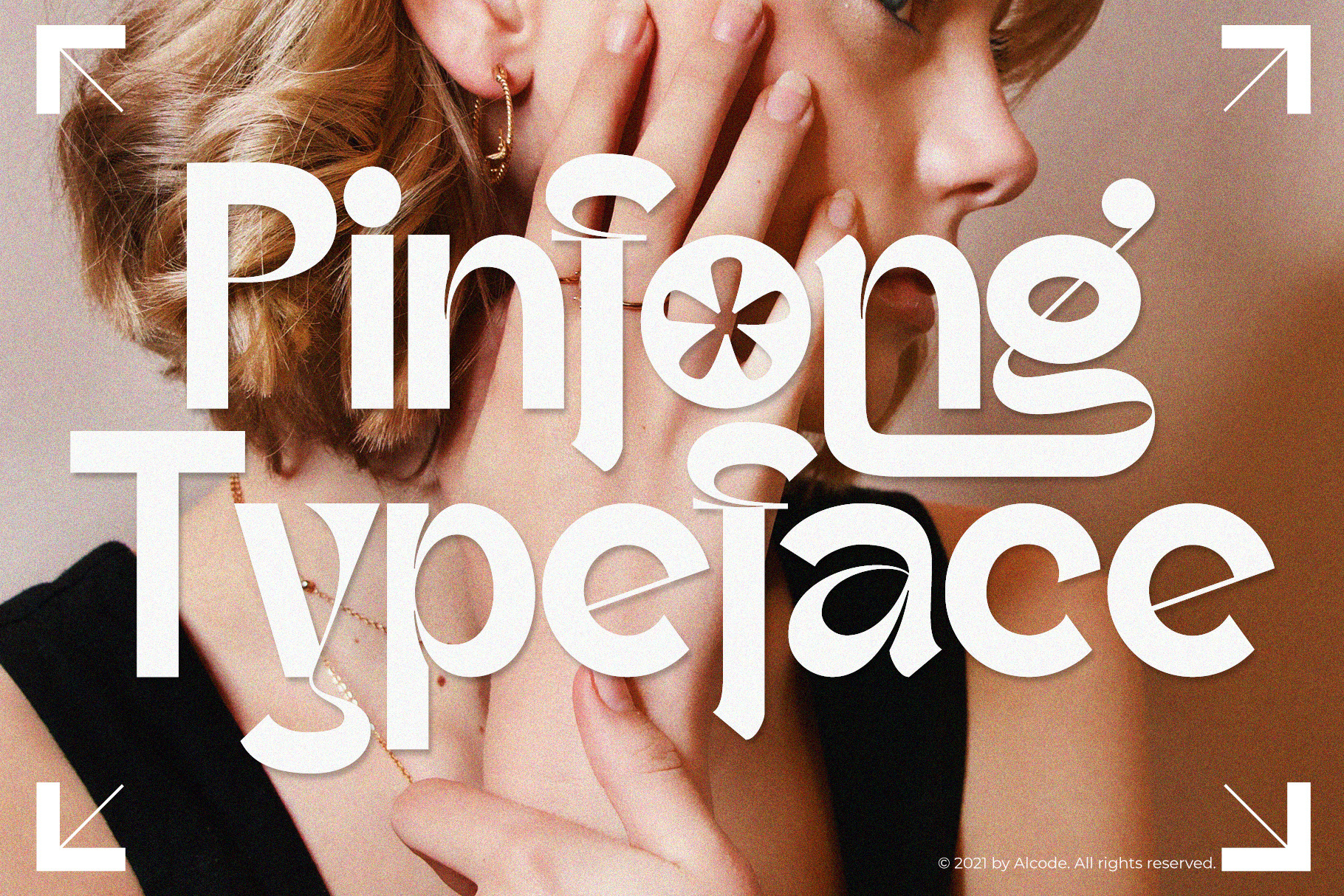
Pinfong Typeface
Pinfong Typeface is a Decorative display font with ligatures also complete multilingual glyphs. Pinfong come with Regular style, it will make this typeface can be used in all design projects and works perfectly for pairing with script typeface or handmade fonts, Headlines, Posters, Packaging, T-shirts, Postcards, Invitation, Wedding Sign, Sign Painting, Signboard, and much more.
•Multilingual Support And Special Ligatures